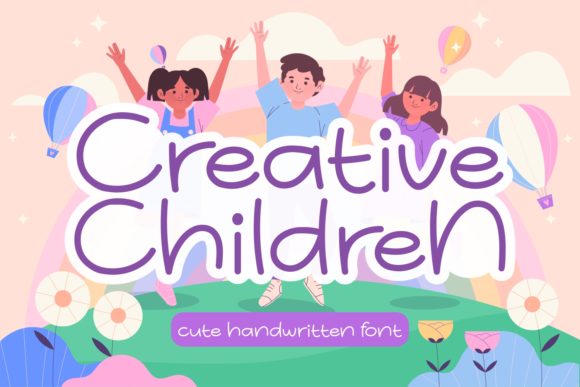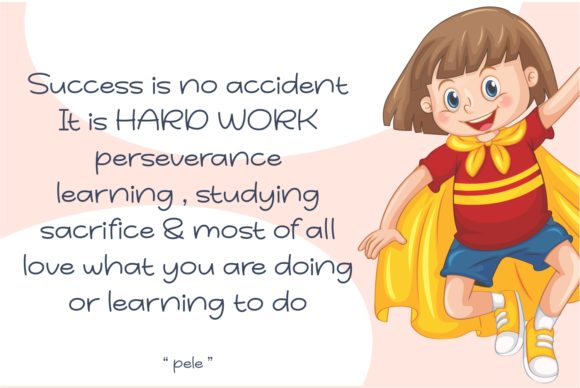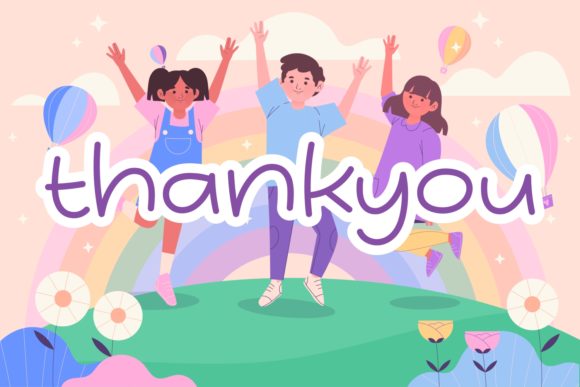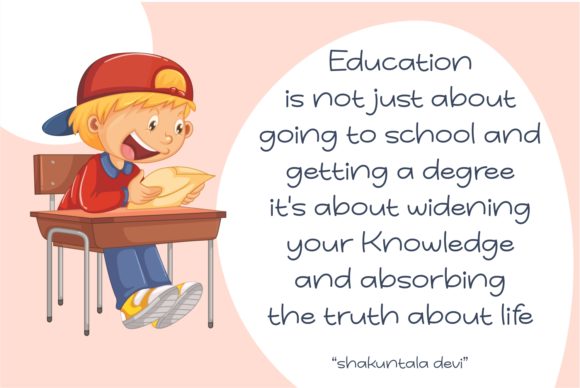
Creative Children Font
About Creative Children Font
Creative Children is a delightful and distinct script font that exudes a carefree and playful vibe. With its quirky charm and casual appeal, this font is the ideal choice for adding a fun and unique touch to your designs. Its versatility makes it perfect for a wide range of projects, from logos and cards to social media posts and beyond.
Fresh and Unique: Creative Children stands out with its fresh and original style, making it an eye-catching choice that sets your designs apart from the crowd.
Carefree Attitude: The font’s carefree attitude adds a sense of playfulness and lightheartedness to your creations, making them feel more vibrant and engaging.
Playful Edge: With a playful edge to its design, Creative Children infuses your designs with a touch of whimsy, making them more enjoyable and captivating.
Quirky and Casual: The font’s quirky and casual nature gives your designs a relaxed and approachable feel, making it perfect for projects that aim to connect with a fun-loving audience.
Logos: Creative Children can be used to create unique and memorable logos that reflect your brand’s playful spirit and distinctive personality.
Cards: Whether you’re designing greeting cards, invitations, or any other type of cards, Creative Children adds a charming and cheerful element to your messages.
Social Media Posts: Infuse your social media posts with a touch of creativity and fun using Creative Children. It’s perfect for grabbing attention and leaving a lasting impression.
Versatility: Creative Children’s adaptability allows it to be used across a wide range of projects, from digital designs to printed materials.
Fresh and Engaging: With its fresh and engaging appearance, Creative Children breathes life into your designs, making them more appealing to your target audience.
Carefree Branding: If your brand aims to convey a carefree and lighthearted image, Creative Children is an excellent choice for branding and marketing materials.
Invitations: Create delightful and captivating invitations for various events, from parties to weddings, using Creative Children.
Children’s Projects: As the name suggests, this font is ideal for children’s projects, from books and posters to educational materials and toys.
In summary, Creative Children is a fresh and unique script font that adds a carefree and playful edge to your designs. Its quirky and casual nature makes it a versatile choice for logos, cards, social media posts, and various other projects. If you’re looking to infuse your designs with a sense of fun and creativity, Creative Children is the perfect font to help you achieve that.